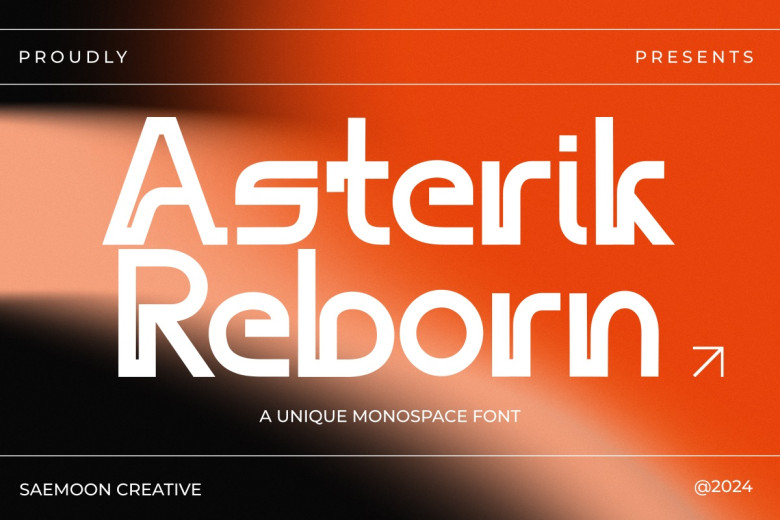
Asterik Reborn Font
Meet Asterik Reborn provided by Saemoon Creative, the modified monospace font with fresh contemporary look and touch of sportiness to it forming unique and spirited character. Every aspect and curve of the fonts are well crafted, and there are sharp edges seen indicating the speed and accuracy. Indeed, in terms of line weight, the thicknesses are equilibrated and spacing is consistent, which makes Asterik Reborn a most readable typeface for digital use and any modern graphic design.
Their high-tech futuristic touch with a stratum of fine geometric overtones is more enhanced with an element of sportive dominance that injects an element of spirited vigor into each of them. Thus, Asterik Reborn becomes a default choice for those willing to adopt risk and innovation, while keeping readability in mind.
This font is genuinely universal, as it can improve the brand’s visual differentiation, convey a sense of innovation, and demonstrate vitality. It complements brands that seek modern, forward-looking image and convey the concept of constant movement. It provides cant2968 and unambiguous characters that exhibit functionality across different branding channels including logos, materials used in promoting brands, and digital identities.